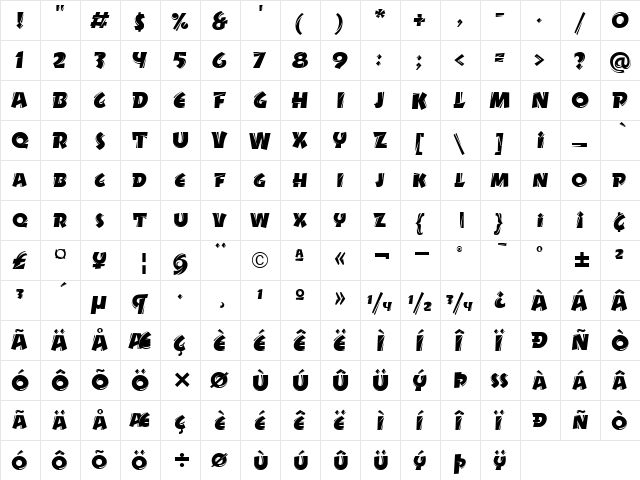
DrycutITC TT Regular
Design Context for DrycutITC TT Typeface
DrycutITC TT is a composed and adaptable typeface that performs quietly and consistently across a wide range of design contexts.